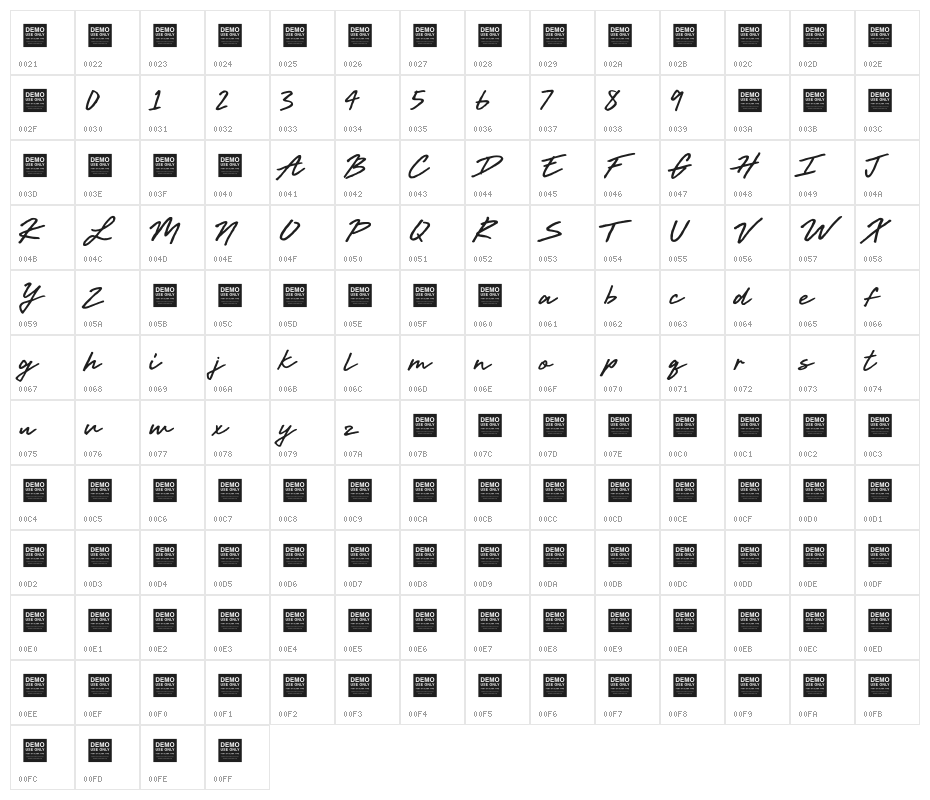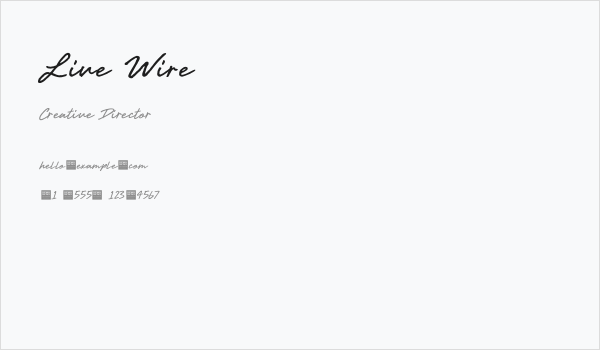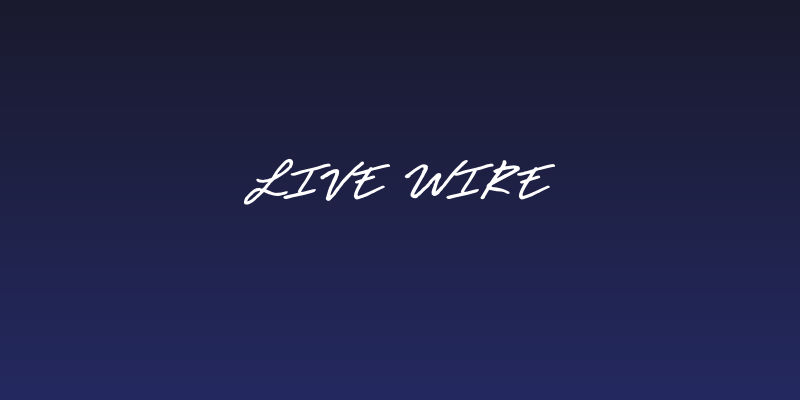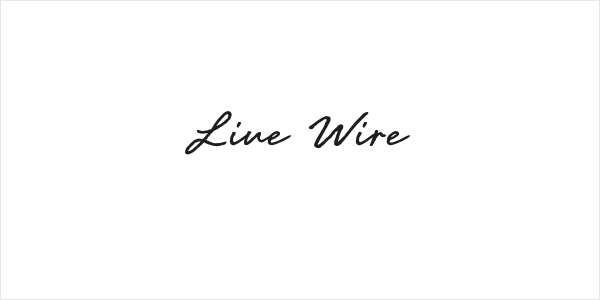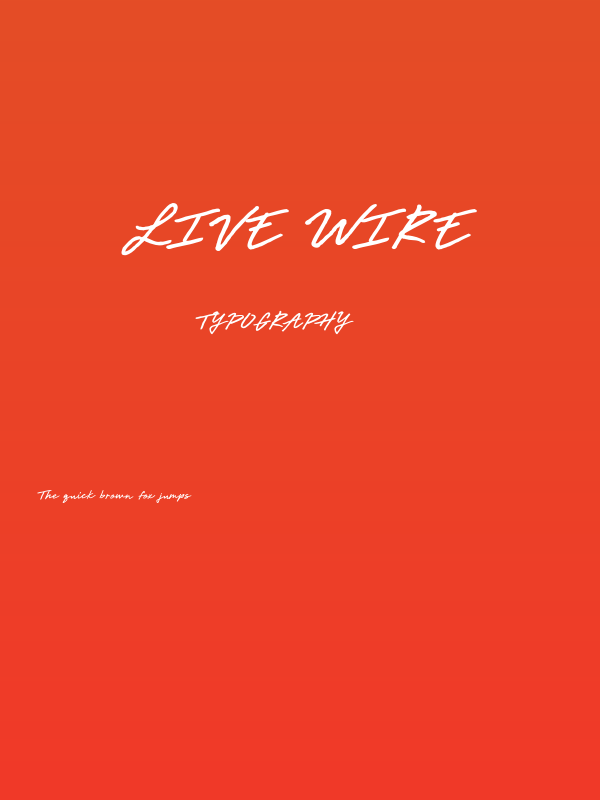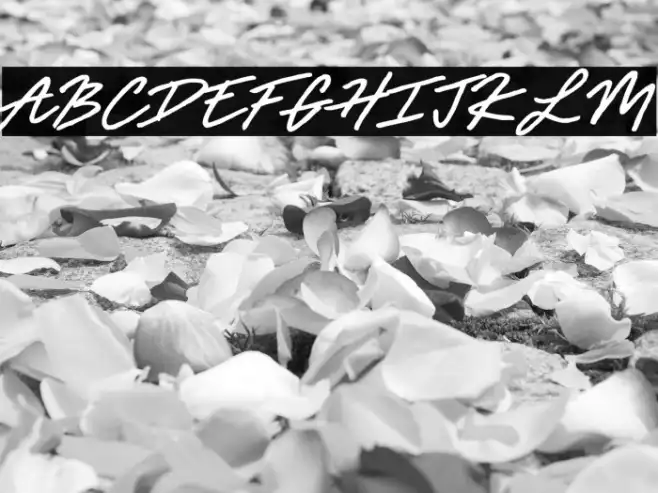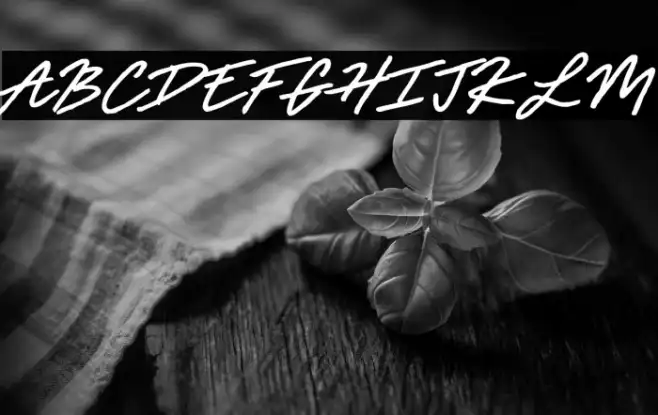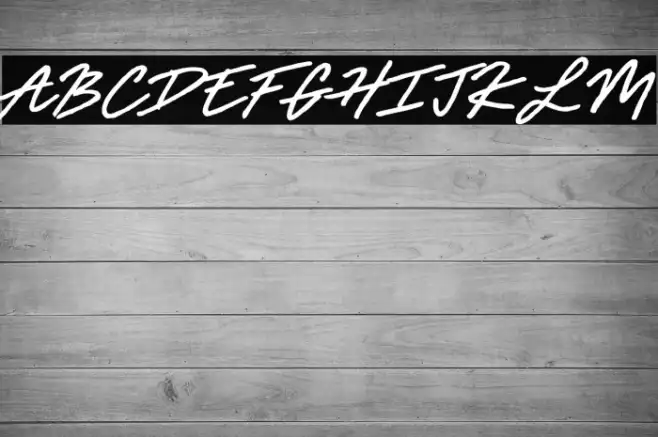
Live Wire Font
Live Wire Description
This font features a dynamic and energetic script style that mimics natural handwriting with a modern twist. The letters are connected in a fluid manner, creating a sense of motion and spontaneity. The strokes are bold and confident, with a slight slant that adds to the casual yet sophisticated appearance. The uppercase letters maintain a consistent height, while the lowercase letters vary slightly, adding to the handwritten feel. Numbers and special characters are crafted with the same lively energy, ensuring a cohesive look across all text. This font is perfect for projects that require a personal touch or a sense of creativity and flair.
| Proposed Projects | Ideal for branding, invitations, greeting cards, and creative projects that require a personal touch. |